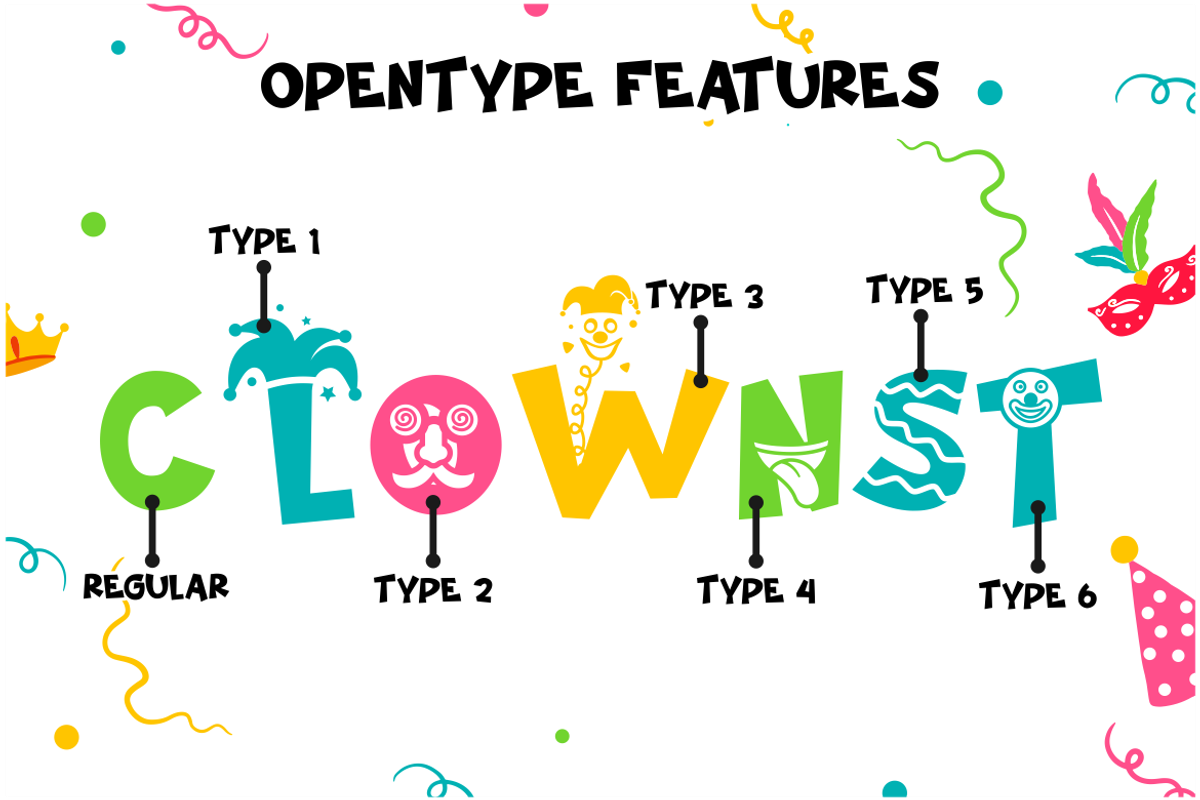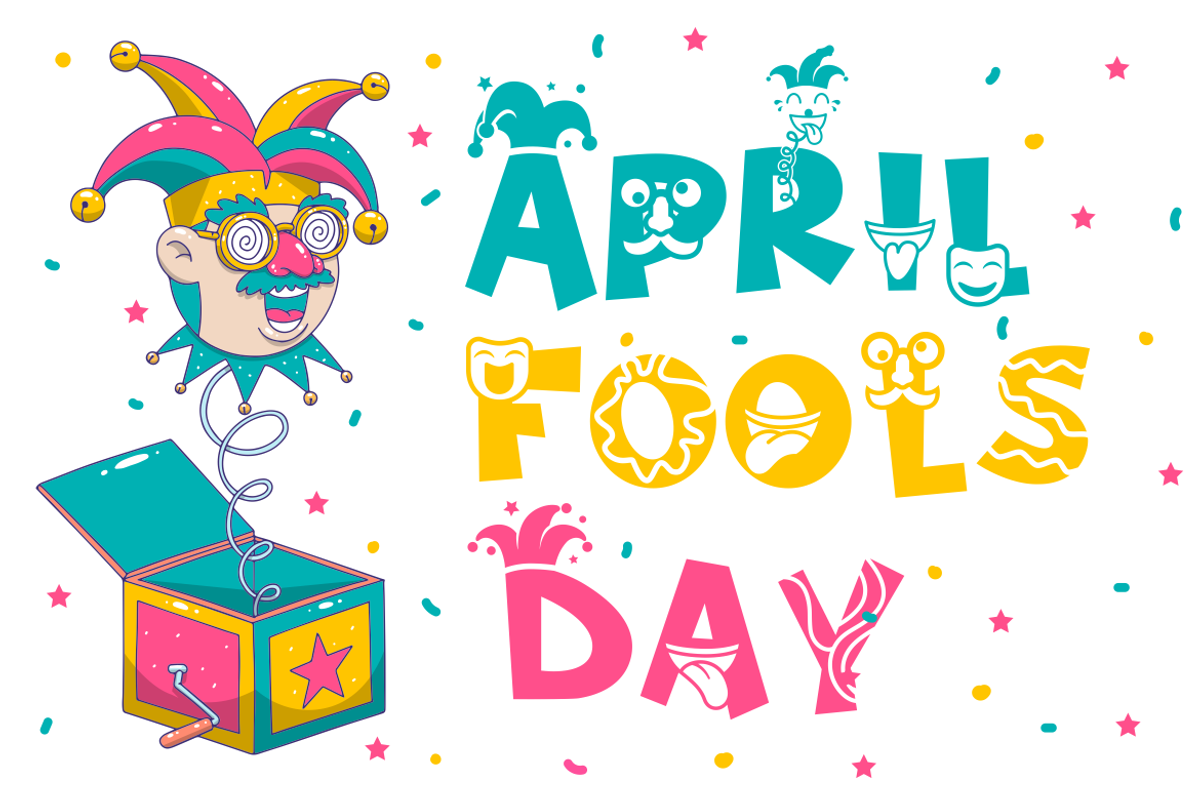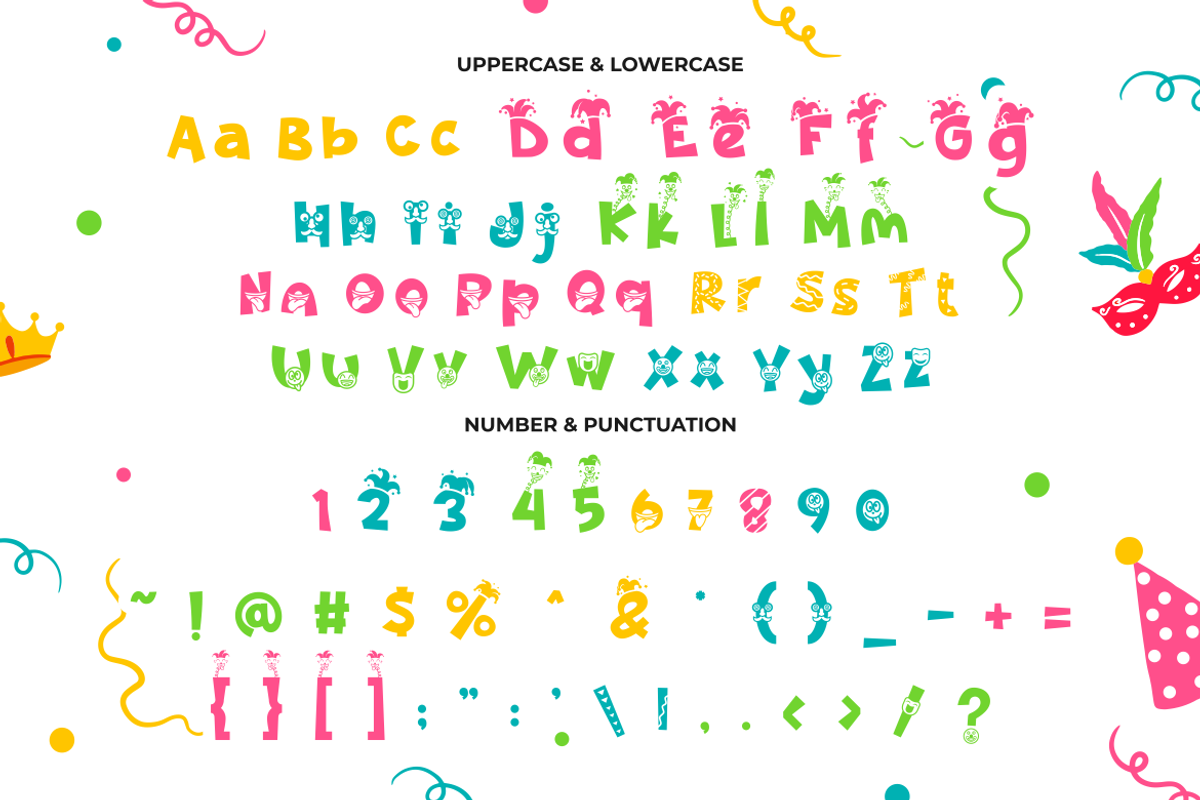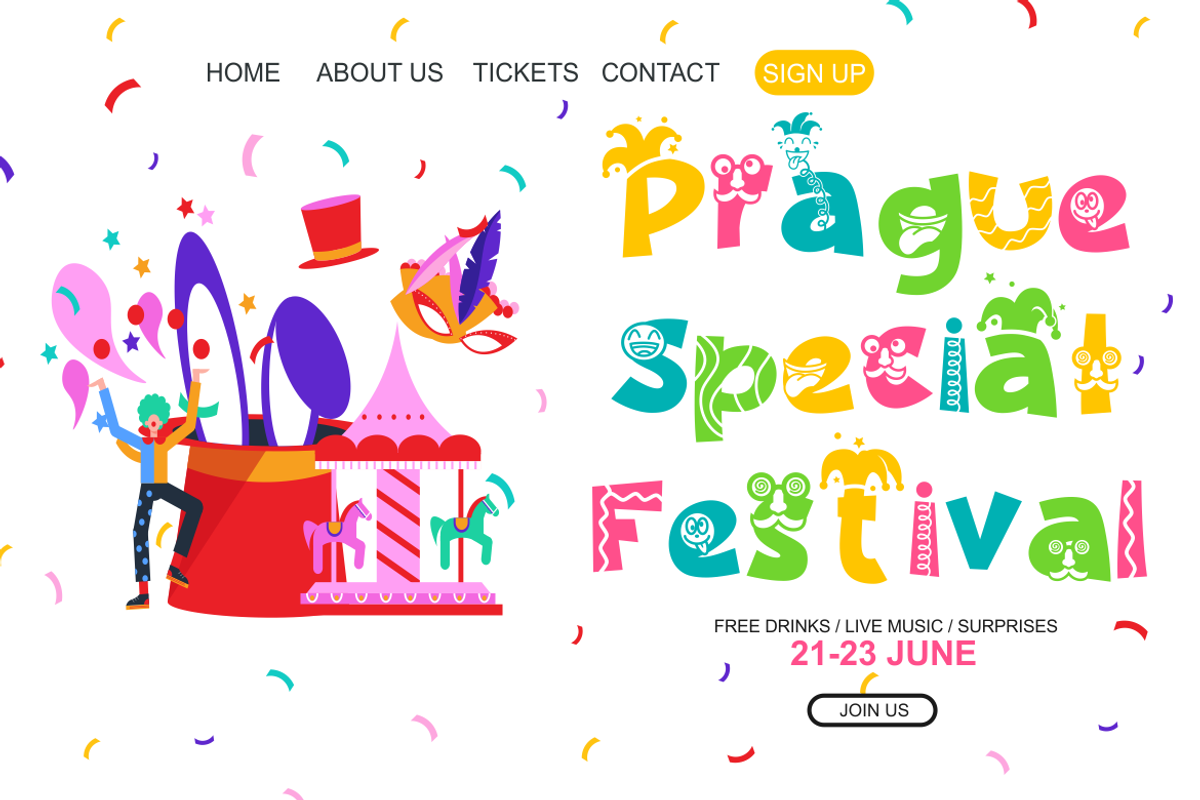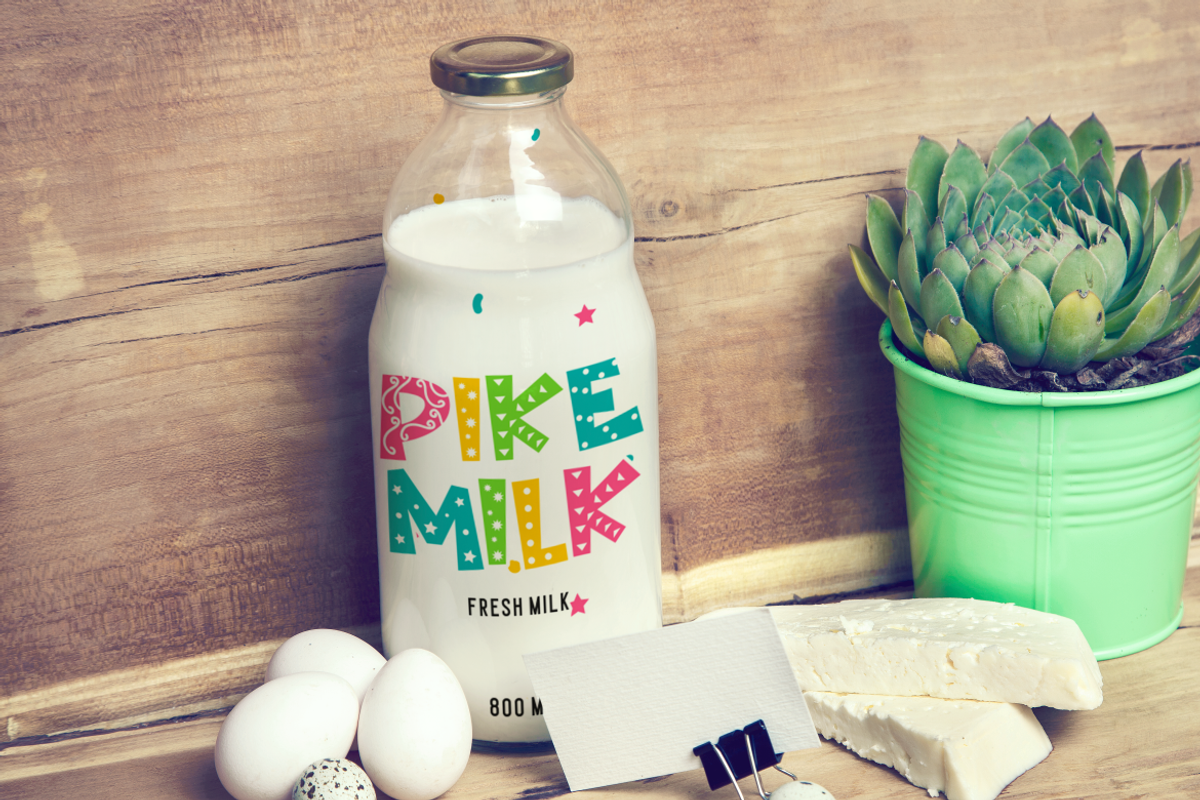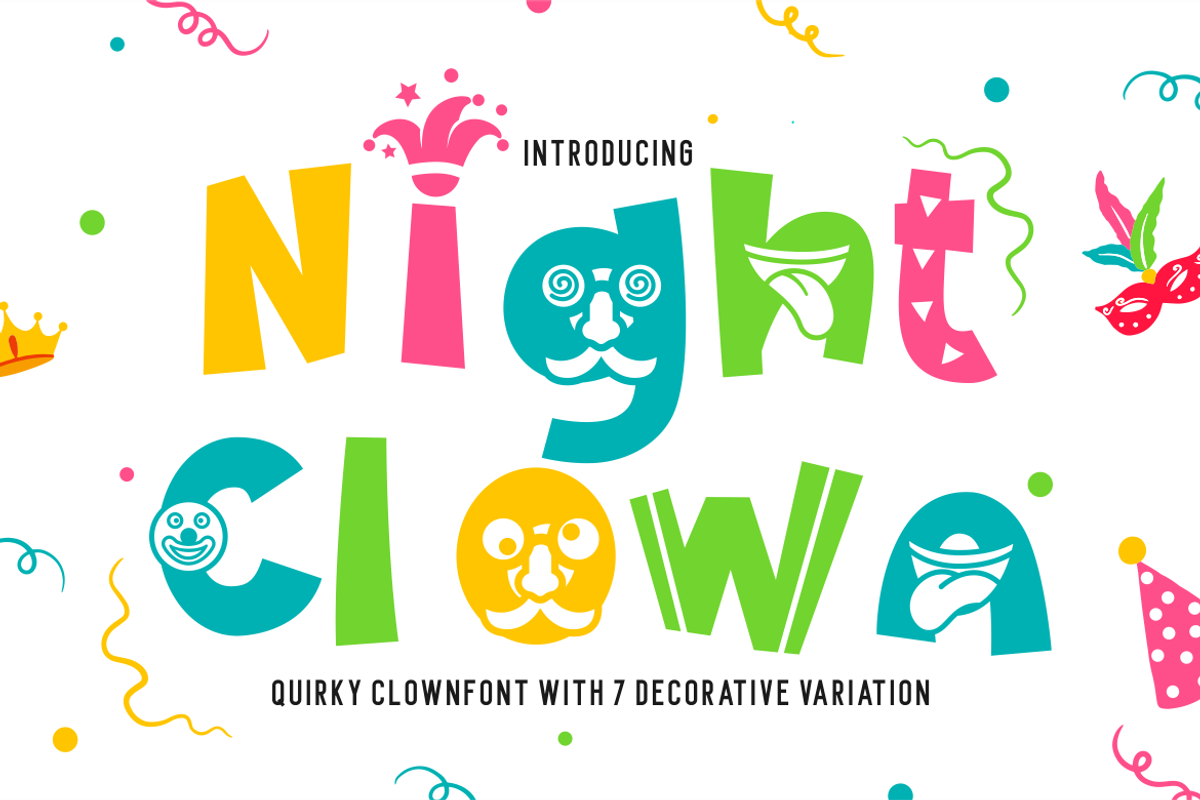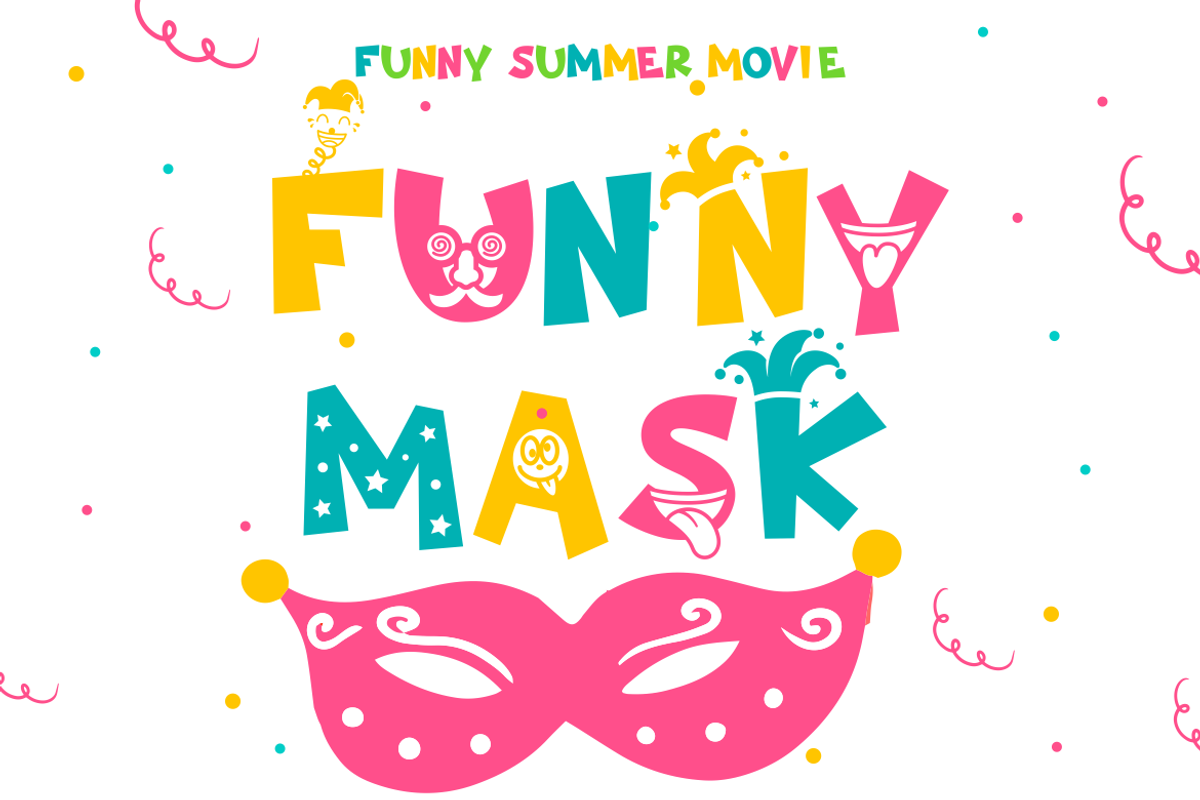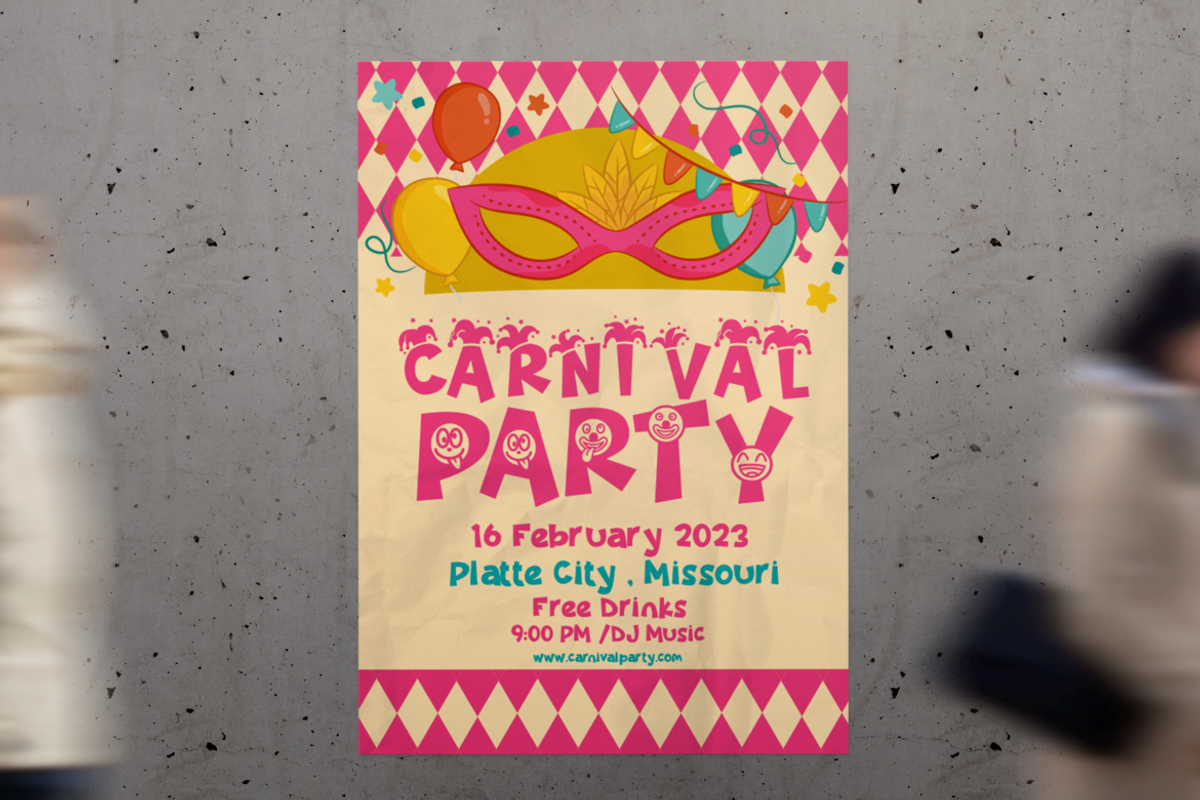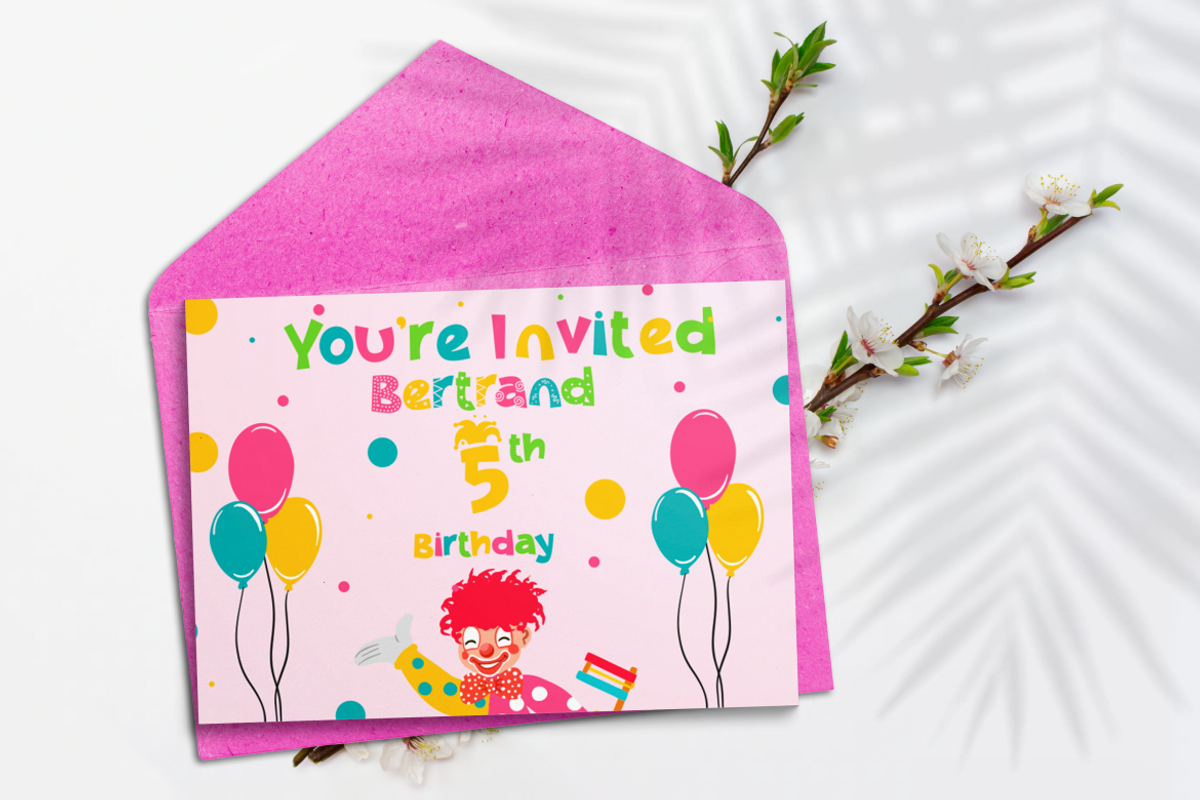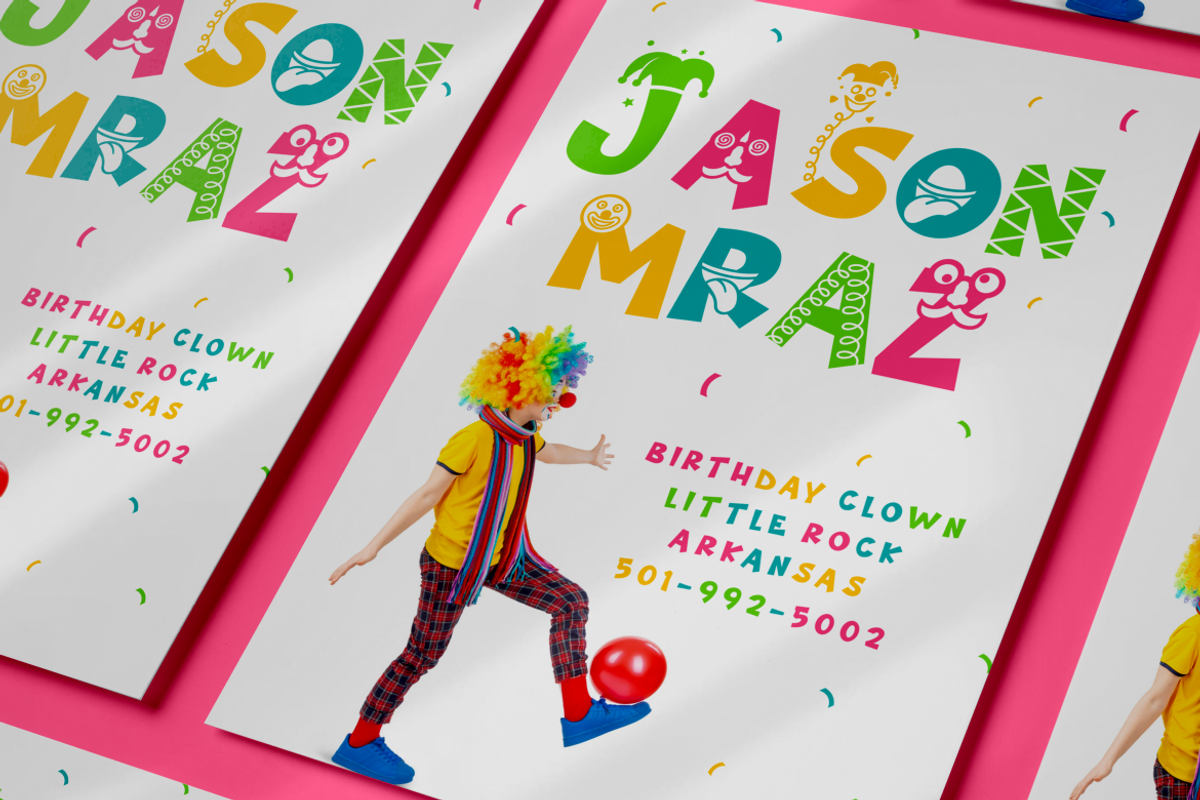
Night Clown - Quirky Clown Font
Step into the whimsical world of Night Clown - Quirky Clown Font. With its quirky, decorative, and playful design, this font captures the essence of clowns, parties, and April Fools' festivities. Offering a delightful range of seven variations - regular, clown hat, mask, surprise, laughter, decorative, and funny face - Night Clown is a perfect fit for children-oriented projects, kids' events, posters, greeting cards, birthday invitations, and even logos.
Embrace the lively spirit of Night Clown - Quirky Clown Font to add a touch of fun and amusement to your creative endeavors. Its unique variations bring an air of mischief and celebration, making it an ideal choice for conveying childlike joy and fostering a cheerful atmosphere. Whether you're designing for events, parties, or playful projects, Night Clown is here to infuse your creations with a burst of whimsy and laughter.